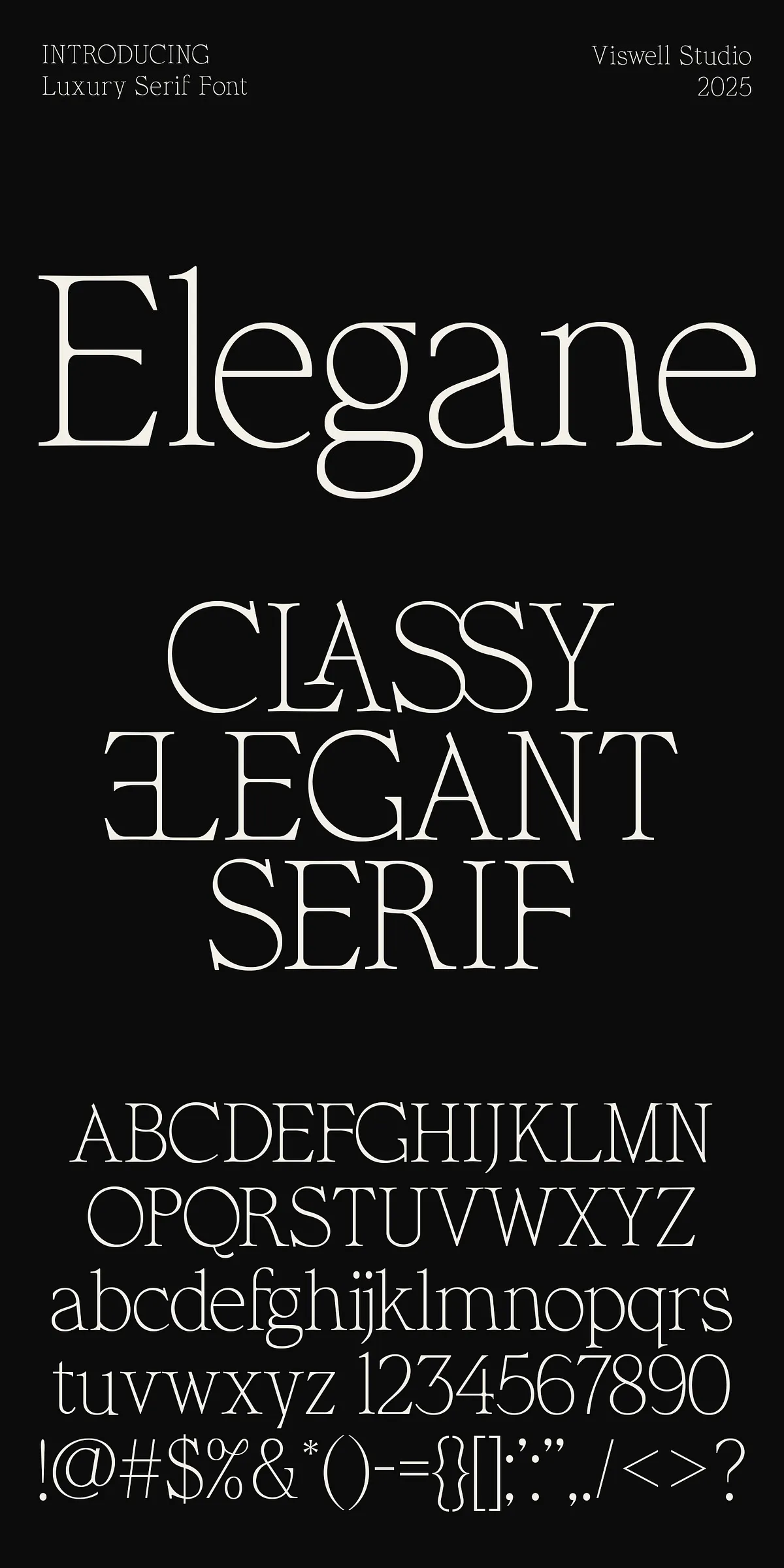
Step into a realm where grace meets power. Elegane isn’t just a font — it’s a statement of refined taste, a silent whisper of opulence that resonates through every stroke. Crafted for designers who demand excellence, Elegane merges the delicate intricacy of classic serif design with the bold confidence of modern typographic authority. This is not just a typeface; it’s the architecture of elegance.
Where Elegane Makes Its Presence Known
Designed for projects that refuse to be ordinary, Elegane shines in high-stakes creative environments. Whether you’re crafting a luxury brand identity, designing a couture fashion editorial, or preparing a bespoke wedding invitation, this serif font delivers a sense of exclusivity that others can only imitate.
Each letterform in Elegane is meticulously sculpted — from the subtle taper of the ascenders to the graceful curves of the terminals. The delicate serifs don’t fade into background noise; they assert themselves with quiet authority, creating visual rhythm that draws the eye without shouting.
Perfect Balance: Delicate Yet Commanding
What sets Elegane apart is its rare equilibrium — it’s soft enough to feel intimate, yet strong enough to dominate any layout. The x-height is optimized for readability without sacrificing visual weight, making it suitable for both body text in high-end magazines and bold headlines in branding campaigns.
Its letter spacing (kerning) has been calibrated for maximum harmony, ensuring that even in tight text blocks, the composition feels luxurious and unhurried. This is typography that doesn’t rush — it unfolds.
Designed for the Discerning Designer
Elegane is not a one-size-fits-all font. It’s built for creators who understand the value of intentionality in every detail. From the first stroke to the last flourish, every character reflects a commitment to sophistication.
With multiple weights and stylistic variations, Elegane offers flexibility without compromising its core aesthetic. Use the light weights for subtle elegance in minimal layouts, or go bold for dramatic headlines that demand attention.
OpenType Features That Add Dimension
Unlock the full potential of Elegane with advanced OpenType features available in your design software:
- Swash Alternates – Transform standard letters into ornamental masterpieces for titles and invitations.
- Stylistic Sets – Access curated glyph variations to customize tone, from formal to artistic.
- Titling Alternates – Optimized forms for large-scale display, ensuring clarity and impact at any size.
- Ligatures – Smooth, elegant connections between characters for seamless flow in long text blocks.
These features empower you to go beyond static text — to design with intention, texture, and emotion.
Applications That Demand Elegane’s Presence
Luxury Branding & Identity
From boutique fashion houses to premium skincare lines, Elegane conveys trust, heritage, and exclusivity. Use it for logos, nameplates, packaging, and brand guidelines to anchor your identity in sophistication.
Editorial & Publishing
Perfect for magazine covers, feature articles, poetry collections, and book titles. Elegane adds a literary depth that elevates content from mere information to art.
Wedding & Event Invitations
Make every invitation a keepsake. Elegane’s refined charm turns a simple message into a ceremonial experience — ideal for high-end weddings, debutante balls, and private galas.
Advertising & Digital Campaigns
Create premium digital ads and banner visuals that stand out in crowded feeds. When luxury is the message, Elegane is the voice.